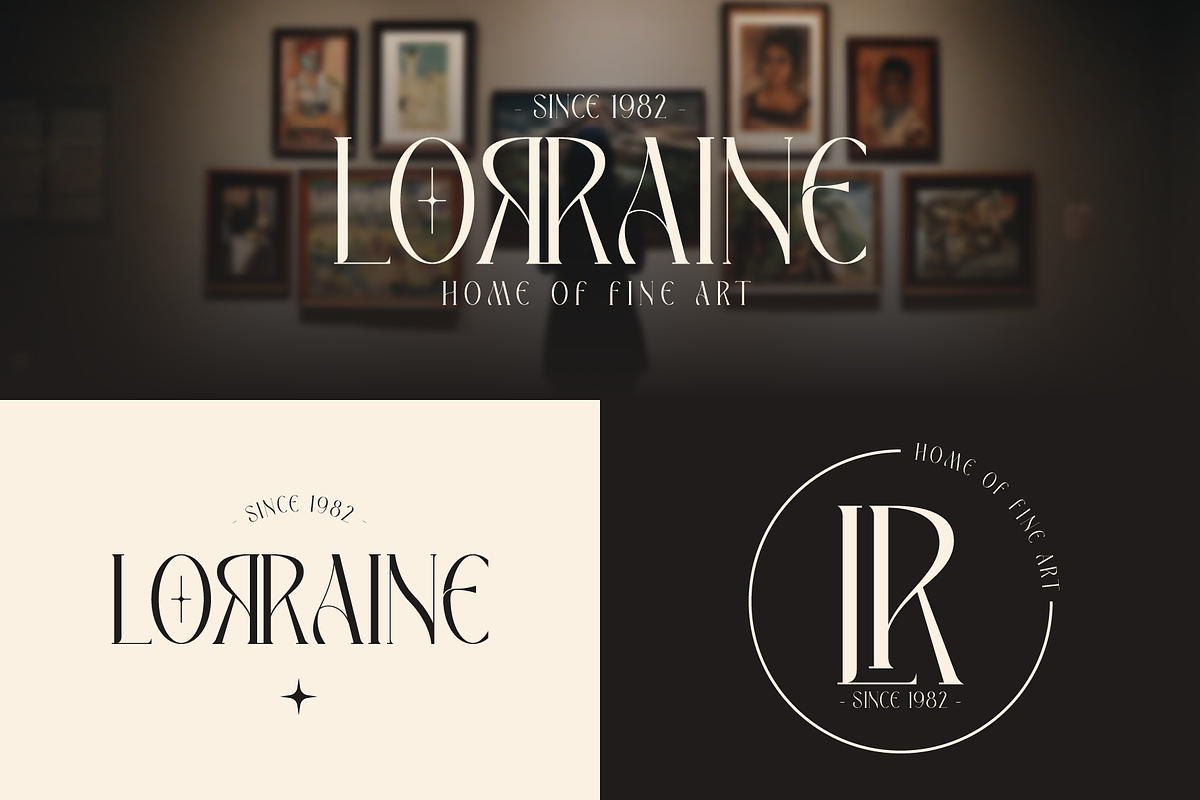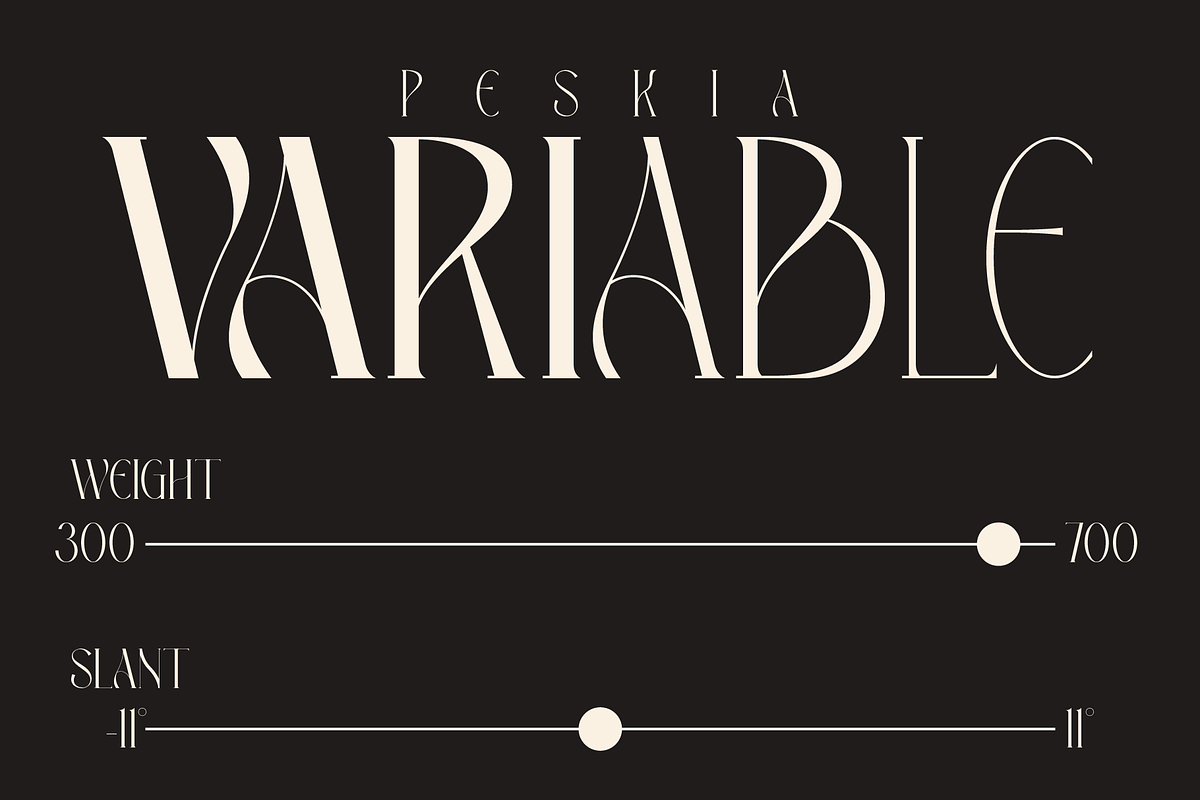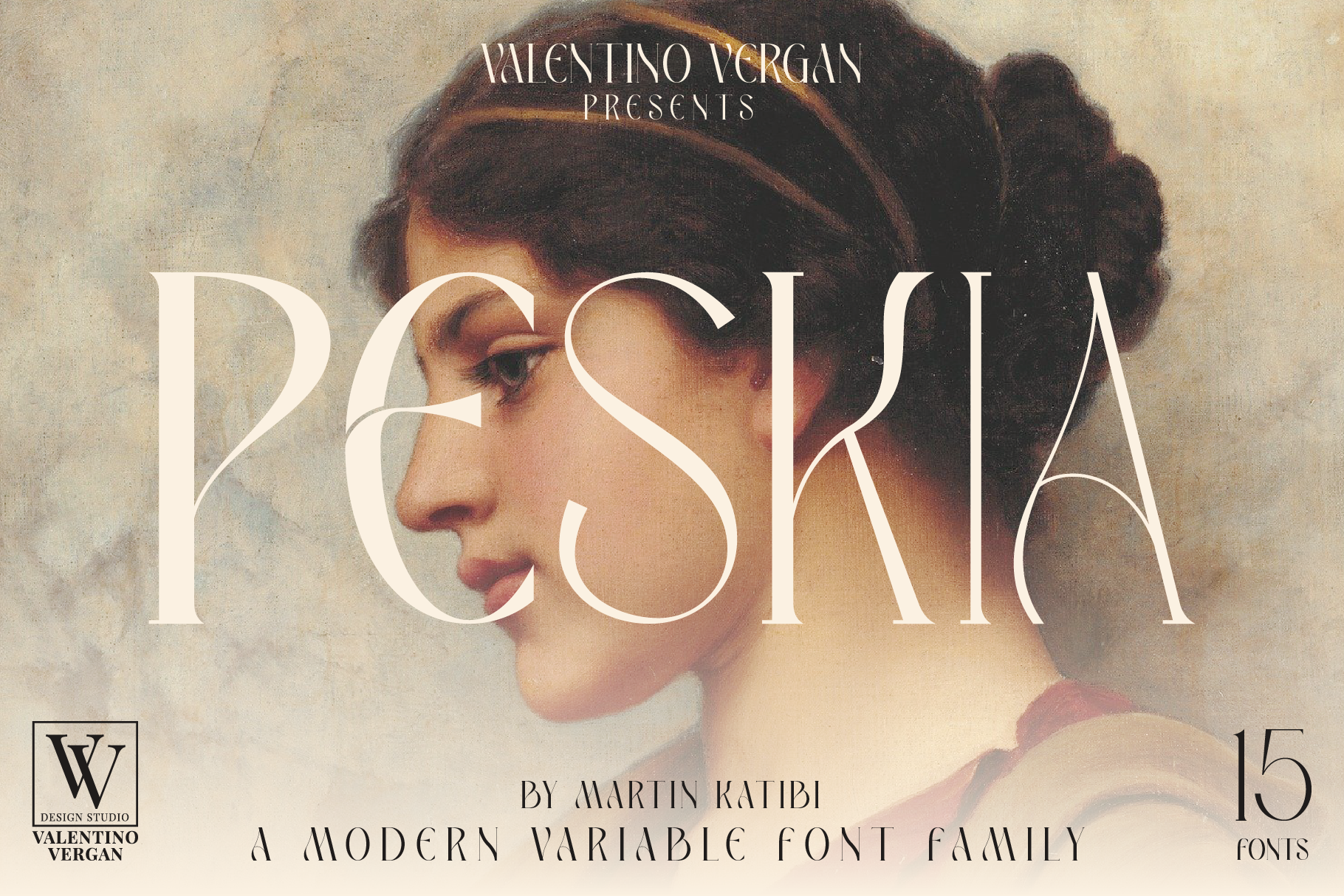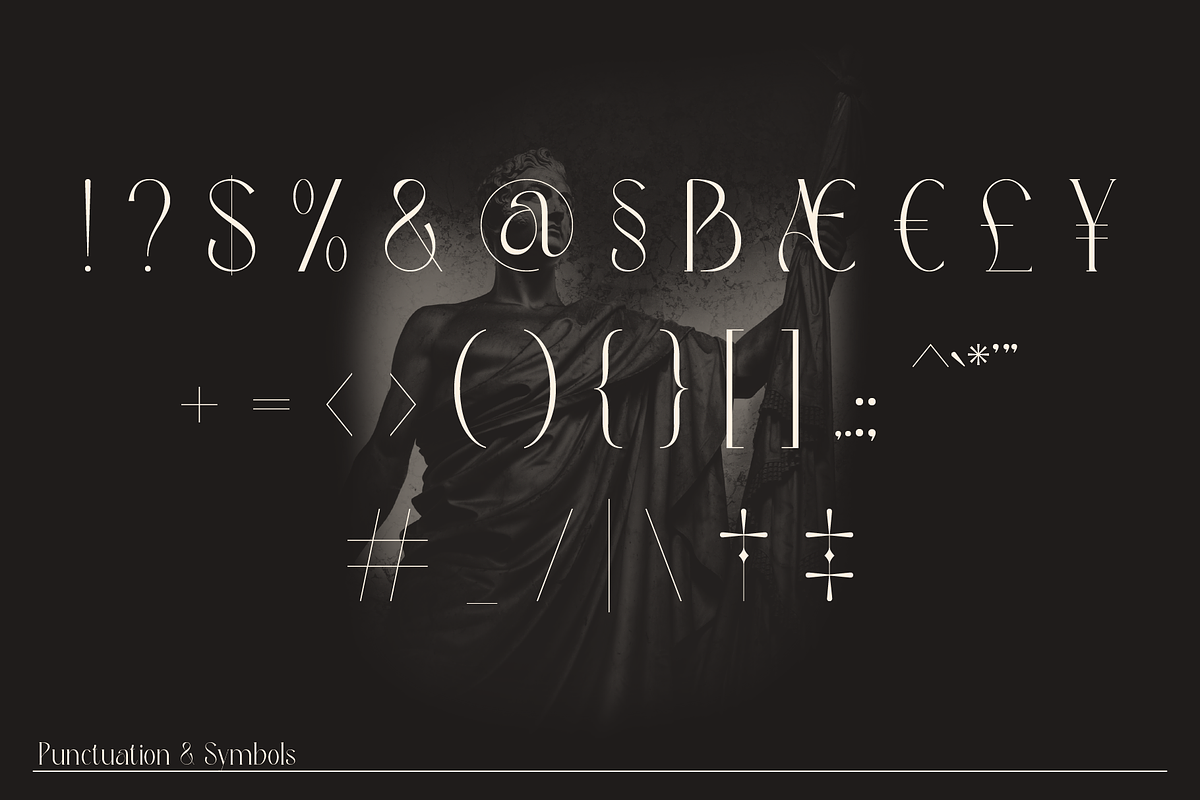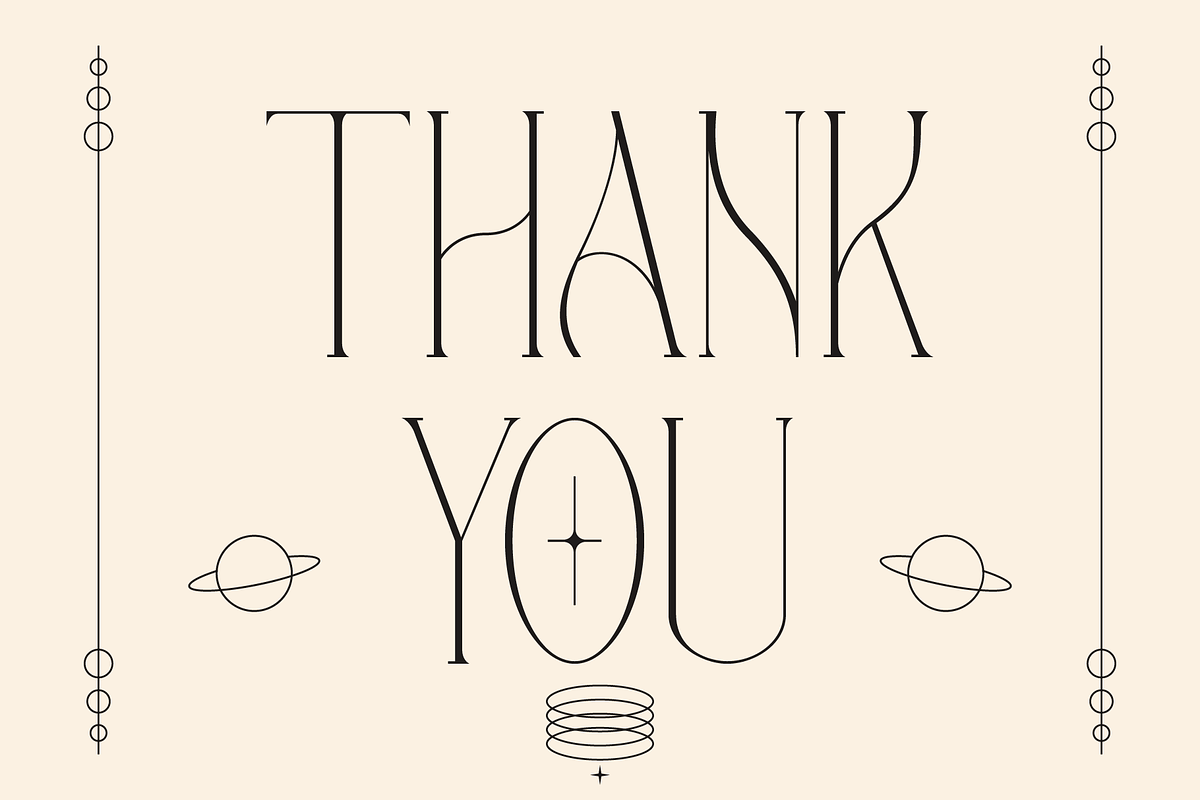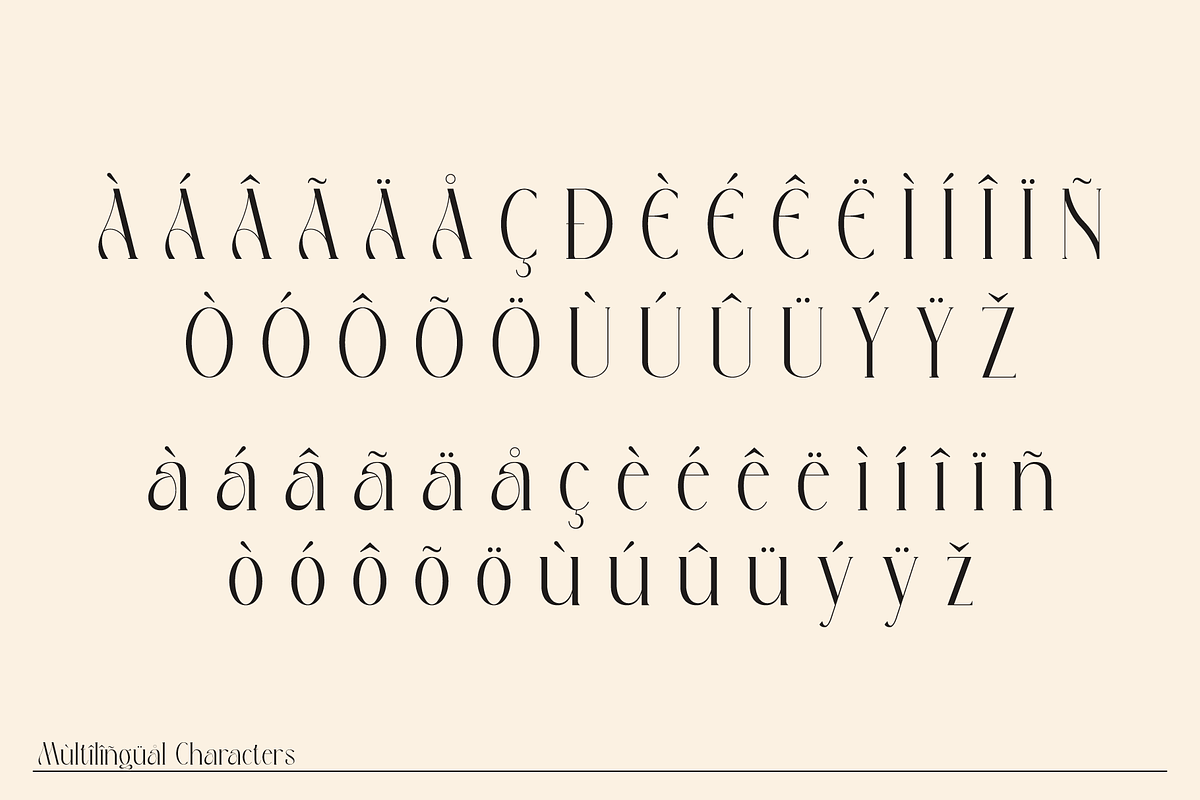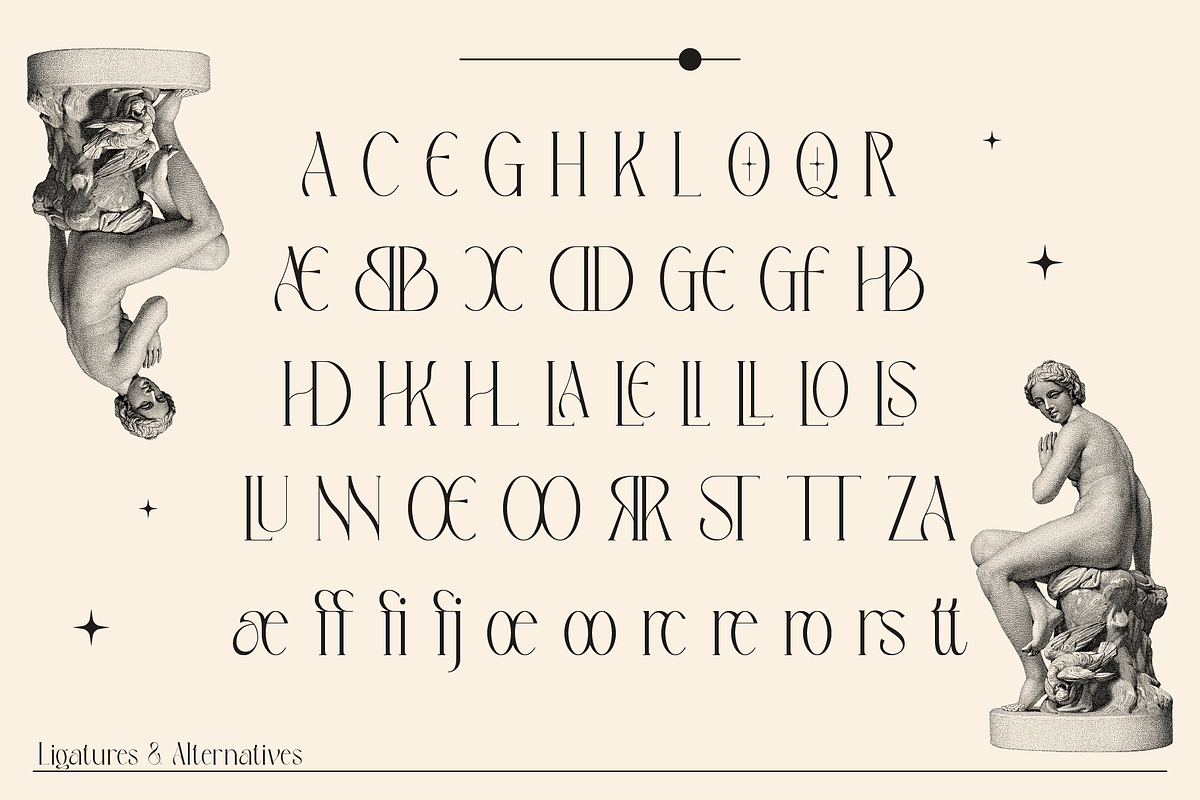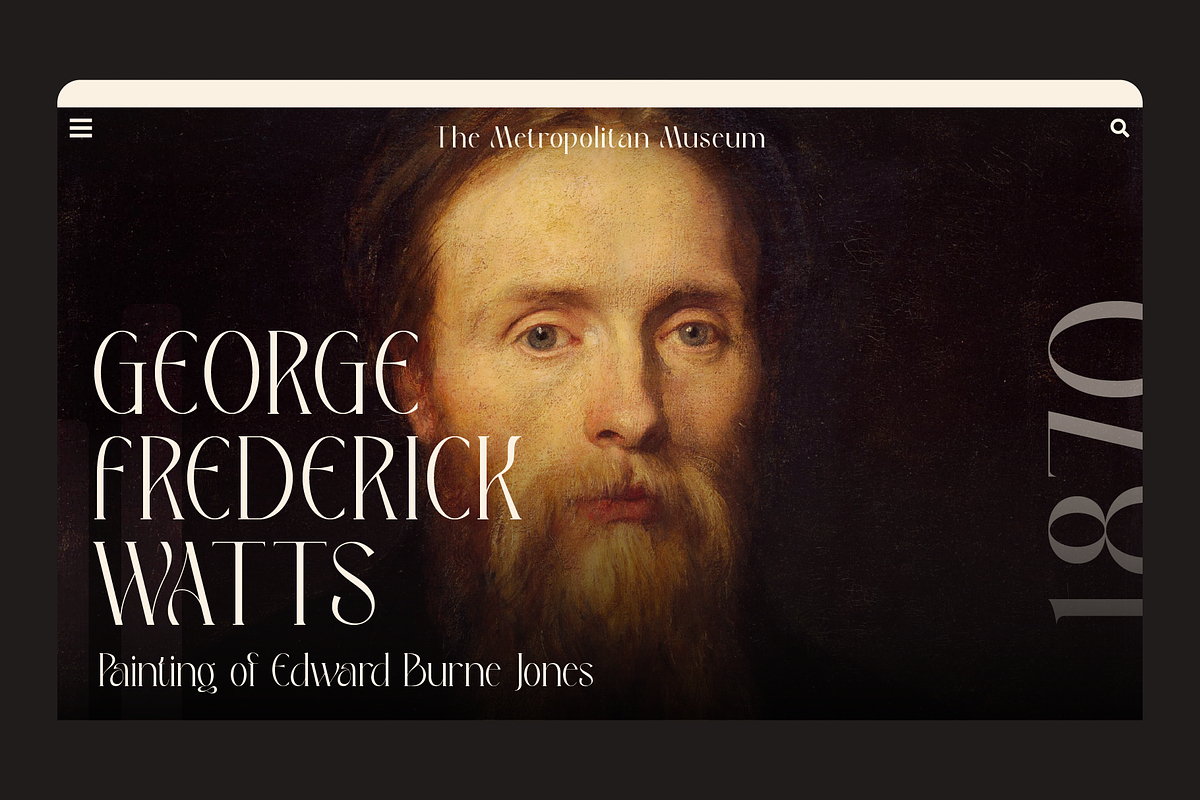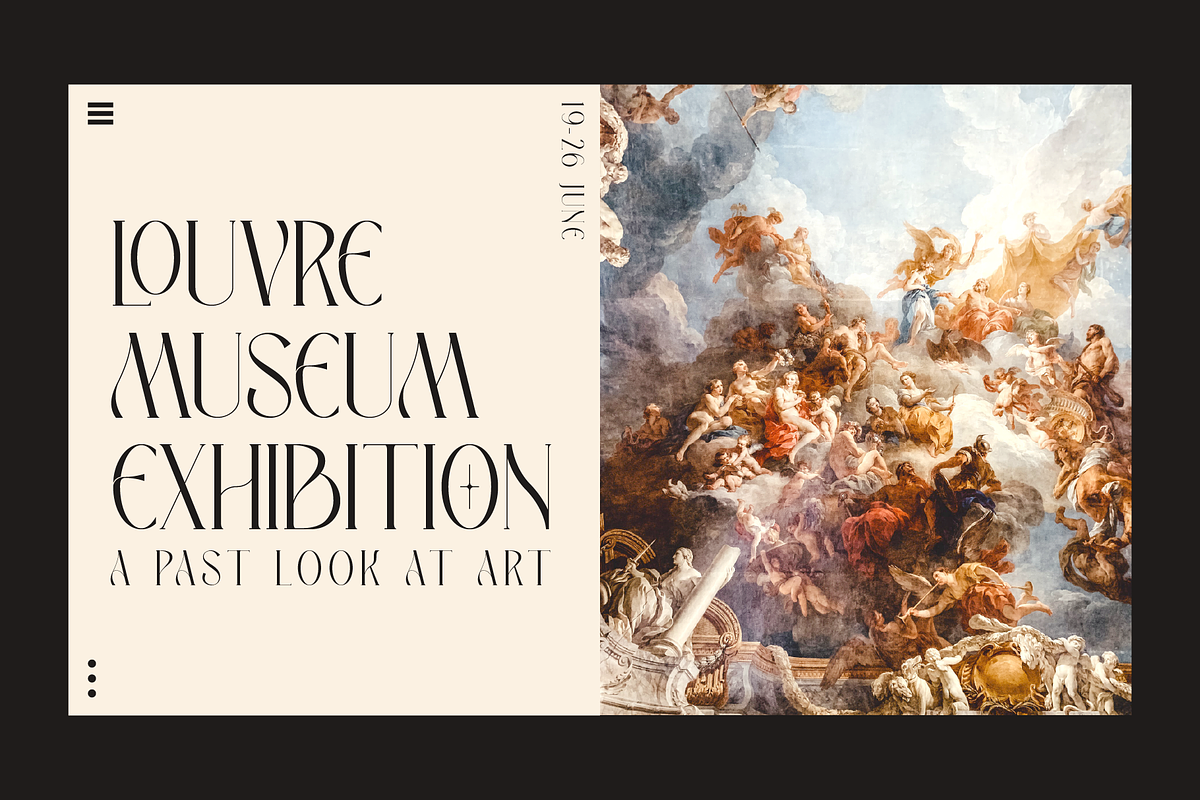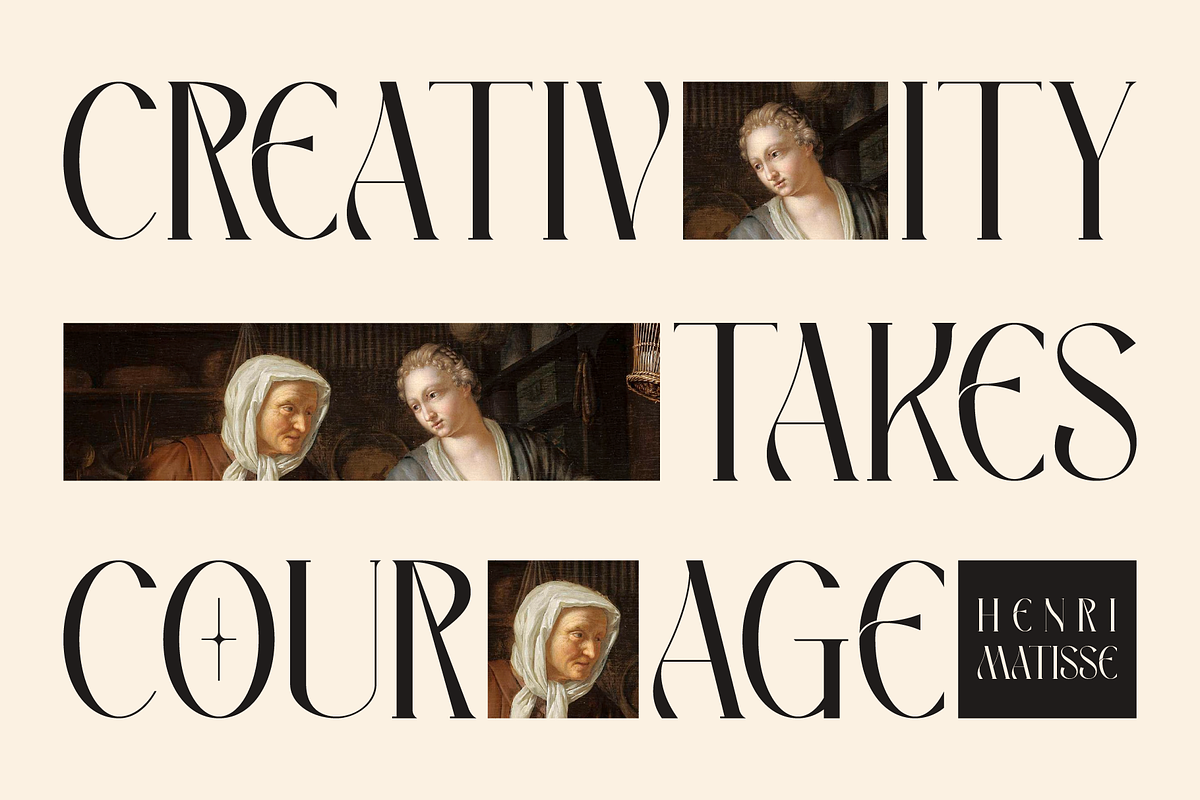
Peskia - Variable Font Family
Peskia is a high-contrast serif typeface that combines timeless elegance with playful sophistication. Its graceful curves, tapered strokes, and bold reversed styles evoke the charm of vintage editorial design with a fresh, contemporary twist.
This versatile family includes 15 meticulously crafted styles—from delicate Light weights to confident Bold, with expressive Oblique and Reversed variants—plus a Variable font for ultimate creative control. Whether you’re working on luxury branding, fashion packaging, wedding invitations, or high-end editorial spreads, Peskia brings refinement and personality to every project.
Inspired by classic calligraphy and Art Nouveau detailing, Peskia is designed to stand out while remaining effortless and adaptable. It features a rich set of OpenType alternates, multilingual support, and beautifully balanced proportions—making it a go-to choice for designers seeking both beauty and function.
PESKIA INCLUDES A FULL SET OF:
- Uppercase and lowercase letters.
- Numbers.
- Punctuation.
- Ligatures.
- Alternate characters.
- Multilingual Symbols.
Peskia speaks with grace, flirts with flair, and adapts with ease—your next signature serif awaits.